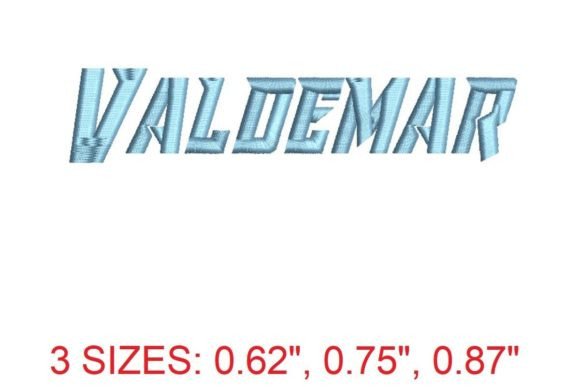
Valdemar Embroidery Font Review
The Valdemar Embroidery Font is a standout addition to any embroidery designer's collection, especially for those creating seasonal and holiday products. Its elegant and charming design brings a refined touch to handmade gifts, personalized items, and commercial embroidery projects. As an experienced embroidery designer, I've tested this font across various applications, and it consistently delivers a high level of detail and versatility.
First Impressions: Seasonal Mood and Decorative Style
From the moment I laid eyes on the Valdemar Embroidery Font, I was struck by its sophisticated yet approachable aesthetic. The font exudes a sense of elegance that feels both timeless and modern. It has a decorative style that works well for holiday themes, offering a warm and inviting presence that can be adapted to a variety of seasonal moods.
Whether you're looking for something cozy, festive, or romantic, Valdemar has the flexibility to match. Its intricate details make it ideal for holiday embroidery, while its clean lines ensure it doesn’t overwhelm smaller projects. This balance makes it perfect for everything from baby items to home decor and apparel.
Real-World Applications in Holiday Selling
As an Etsy seller and small shop product creator, I’ve found that the Valdemar Embroidery Font is incredibly useful for a wide range of holiday items. It works beautifully on sweatshirt embroidery, tote bag design, and kitchen towel embroidery, adding a personal touch that resonates with buyers looking for unique, handmade gifts.
For home decor, it’s a great fit for pillow covers and embroidered patches. On ornaments and aprons, it adds a level of sophistication that elevates the overall appeal. Whether you're creating family matching items or limited edition apparel, Valdemar provides a consistent look that aligns with seasonal trends.
This font also shines in printable mockups and promotional graphics, making it easy to showcase your holiday products on social media or in online listings. Its visual recognition factor helps build brand consistency, which is essential for customer trust and engagement during the busy holiday season.
Where to Use It Carefully
While the Valdemar Embroidery Font is highly versatile, there are a few situations where caution is advised. Small hoop sizes may not accommodate the finer details of the font, so it's best to use it on larger projects or adjust the design as needed. Tiny lettering can become lost in dense stitch areas, so careful planning is important.
When working with thick towels or dark fabric, the font may require adjustments in thread colors to ensure visibility. Metallic thread can sometimes dull the fine details, so testing is recommended. Stretchy garments and curved caps may need extra stabilizer to prevent distortion during stitching.
Impact on Seasonal Appeal and Buyer Emotion
The Valdemar Embroidery Font enhances the emotional appeal of holiday products by adding a sense of thoughtfulness and care. It transforms simple items into meaningful personalized gifts that customers will cherish. This emotional connection is crucial for giftability and can significantly boost sales during the holiday shopping period.
Its premium feel also increases the perceived value of finished products, making them more attractive to buyers looking for quality and uniqueness. Whether you're selling on Etsy or at a craft fair, the font's visual appeal helps create a strong first impression that encourages purchases.
Practical Tips for Embroidery Designers
To get the most out of the Valdemar Embroidery Font, I recommend testing thread colors on both light and dark fabrics to ensure optimal contrast. Pay close attention to stitch density, as overly dense areas can cause fabric puckering or thread breakage. Confirm your hoop size before starting a project to avoid unnecessary resizing or adjustments.
Using the right stabilizer is key, especially when working with delicate or stretchy fabrics. Creating realistic mockups helps potential buyers visualize the final product, and reviewing small details after stitching ensures a polished finish. Planning matching color palettes and checking Creative Fabrica product details and licensing before selling is also essential.
As a digital embroidery file, Valdemar offers convenience and flexibility, making it ideal for both hobbyists and professional embroidery sellers. Its compatibility with PES files means it can be used across a wide range of embroidery machines, ensuring broad accessibility for users.
Conclusion: A Versatile Choice for Seasonal Projects
In summary, the Valdemar Embroidery Font is a valuable asset for anyone involved in holiday embroidery, seasonal embroidery, or handmade gift creation. Its blend of elegance and adaptability makes it suitable for a wide range of applications, from everyday items to special occasion pieces.